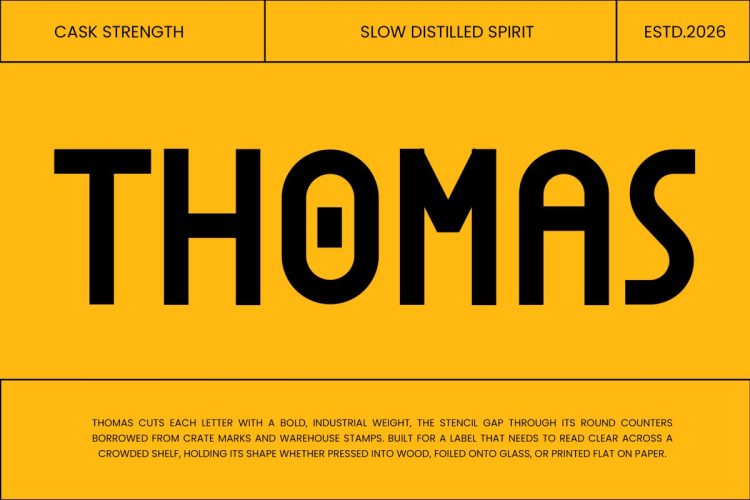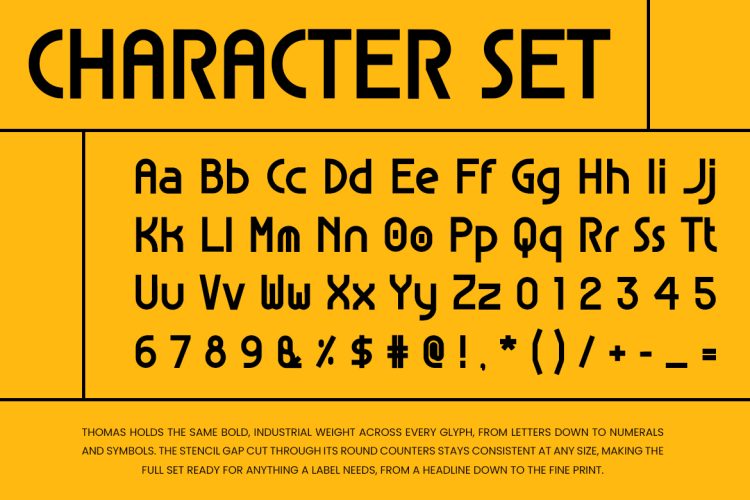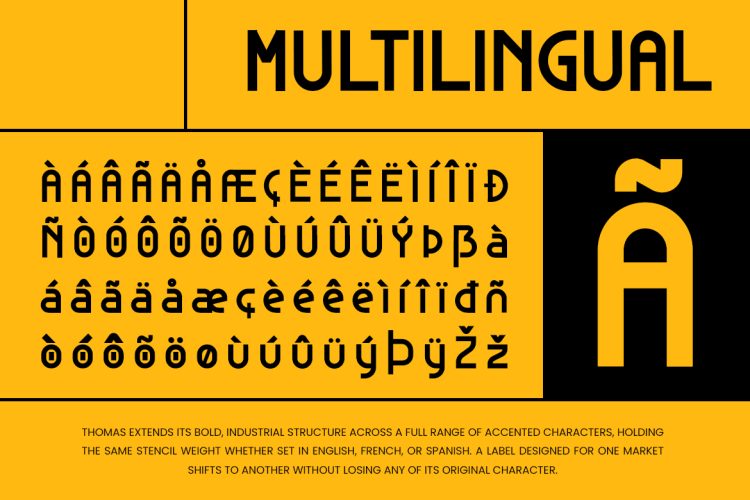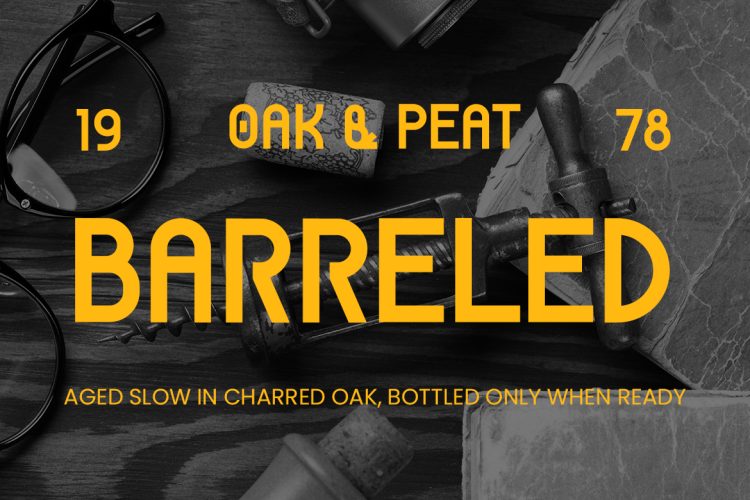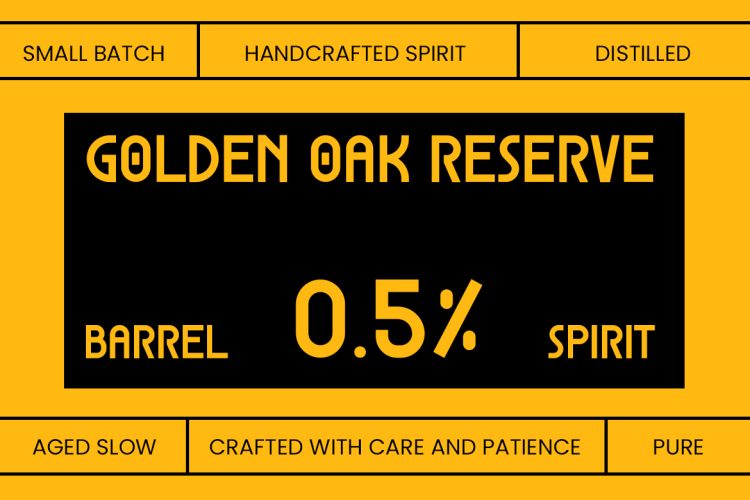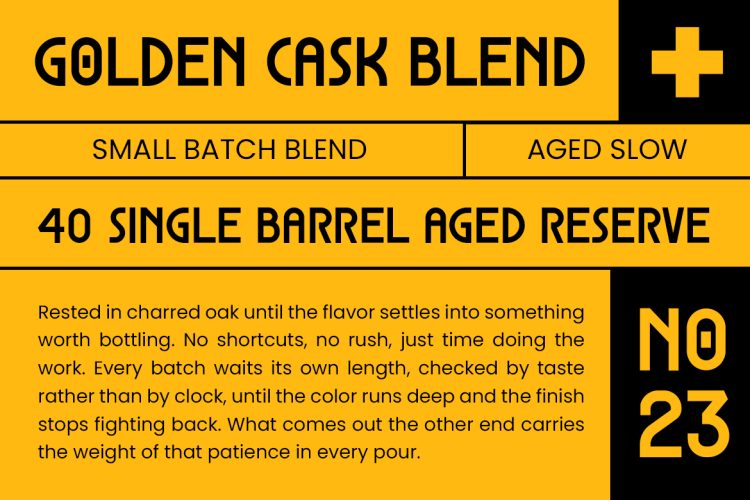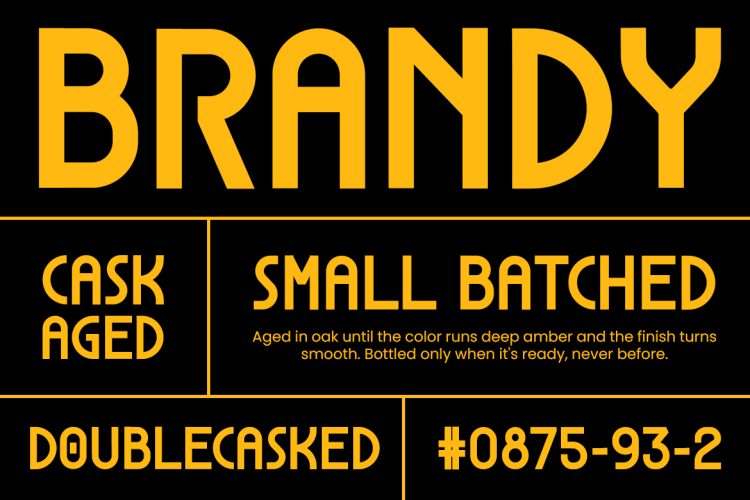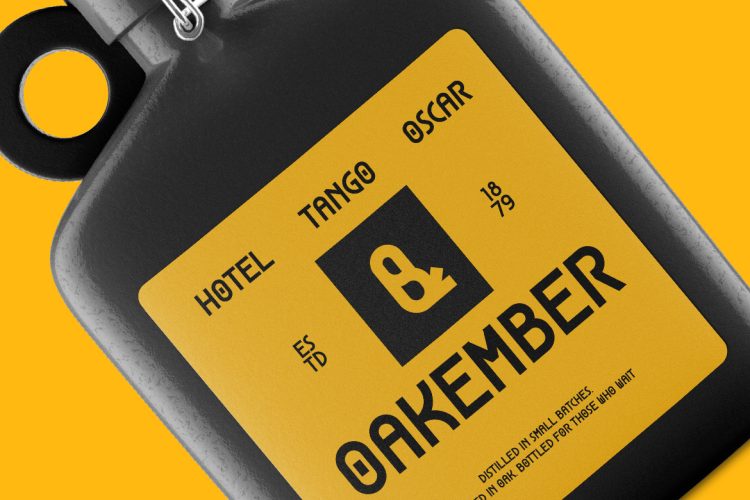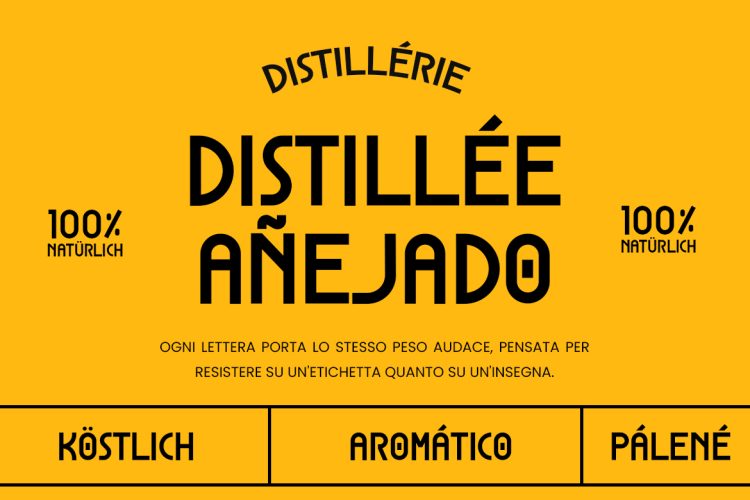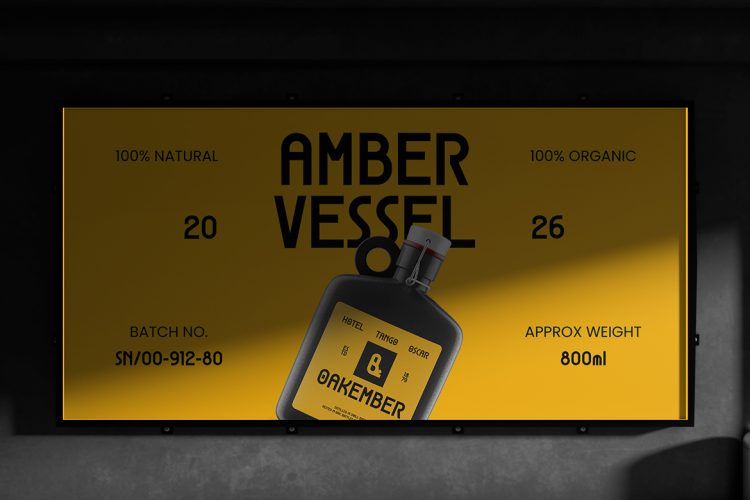
THOMAS โ Bold Retro Craft Display Font
Retro Font THOMAS is a bold display font with a strong vintage craft aesthetic. At first glance, its chunky letterforms create an instant visual impact. Moreover, the clean geometric shapes give THOMAS a cool retro-industrial personality. Meanwhile, its solid structure keeps headlines clear and highly readable. As a result, it works beautifully for designs that need bold lettering and classic character. In addition, THOMAS includes Multilingual Support for 67 Languages, making it flexible for global creative projects.
Whether you are creating a vintage brand or a bold product label, THOMAS fits right in. Furthermore, it works great for craft branding, beverage labels, packaging, posters, logos, badges, T-shirts, menus, signs, merchandise, and social media graphics. Additionally, its rugged personality suits designers, breweries, restaurants, creative businesses, and lifestyle brands. Because of its strong shapes, THOMAS looks especially striking on headlines, labels, and large-format designs.